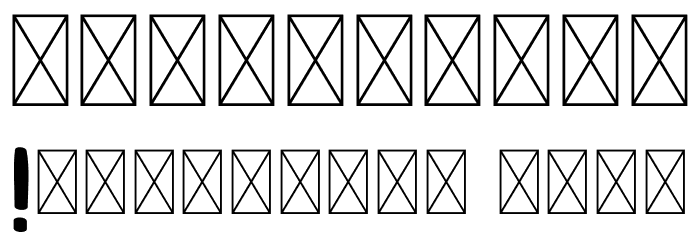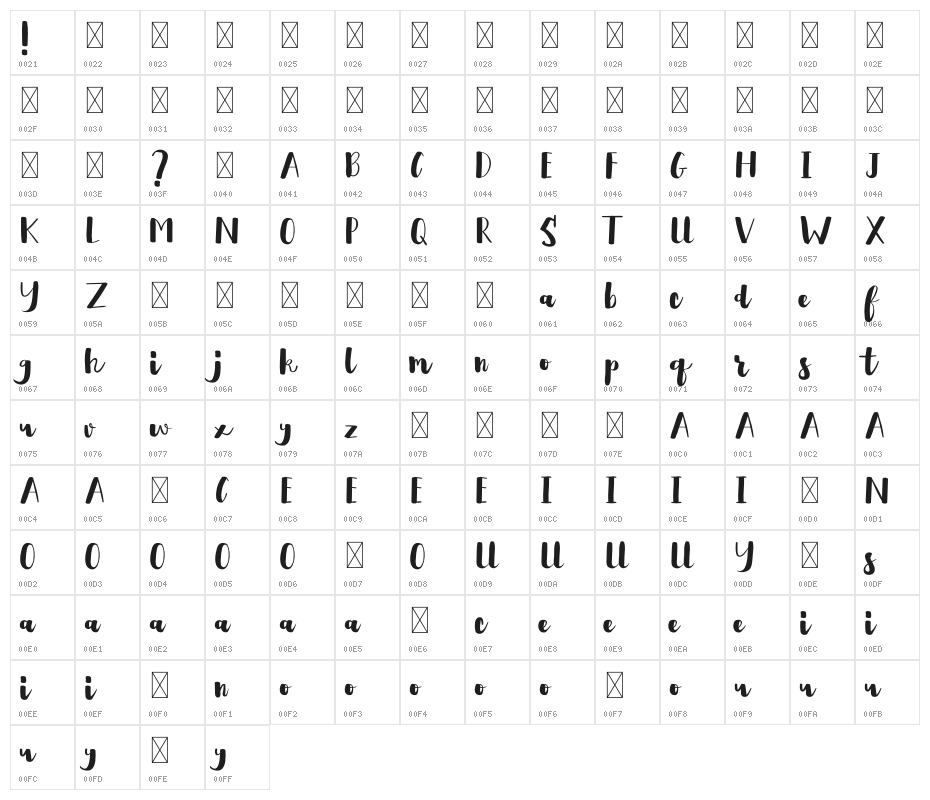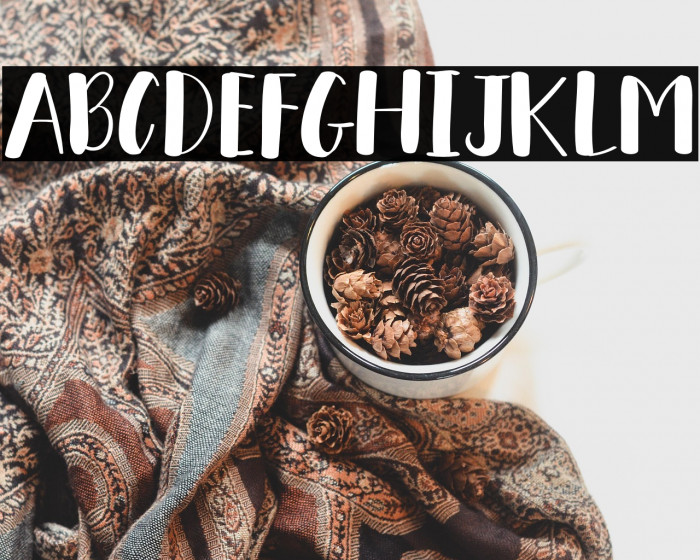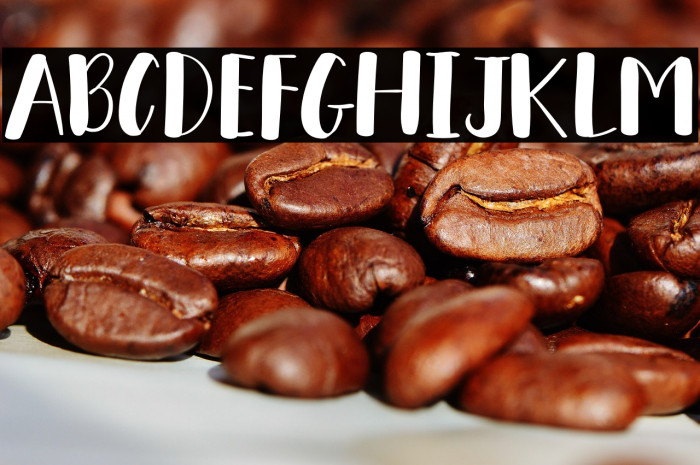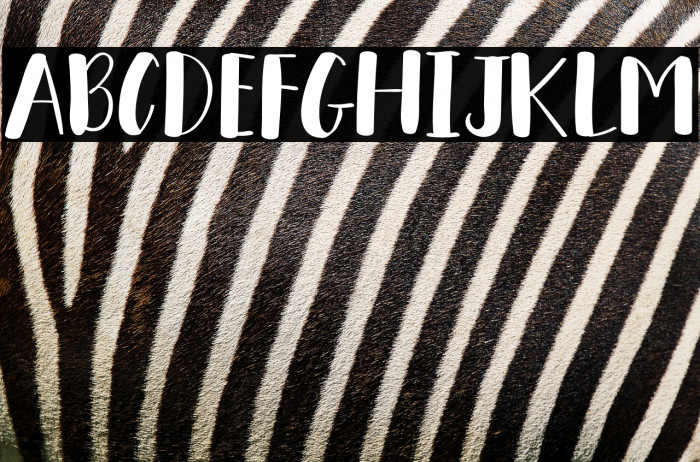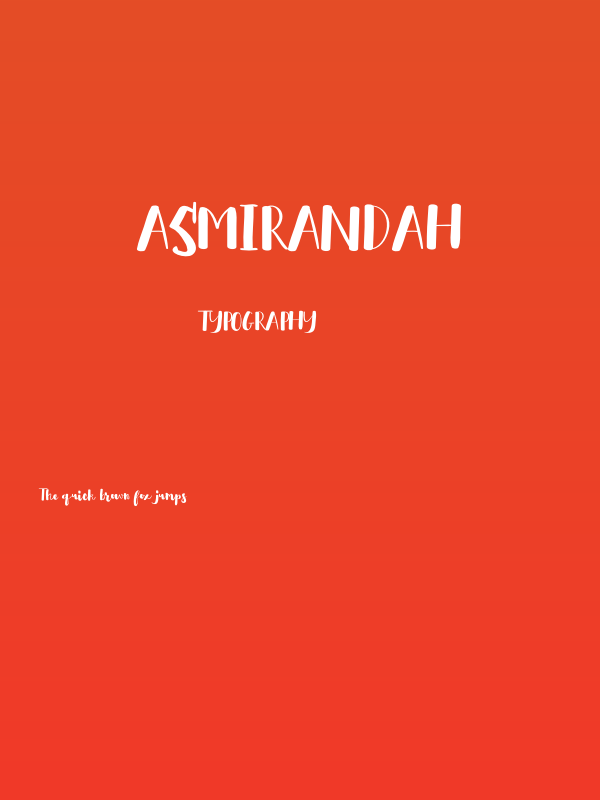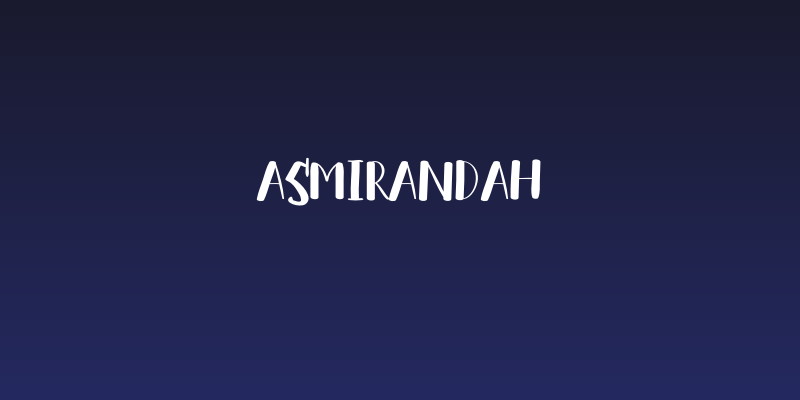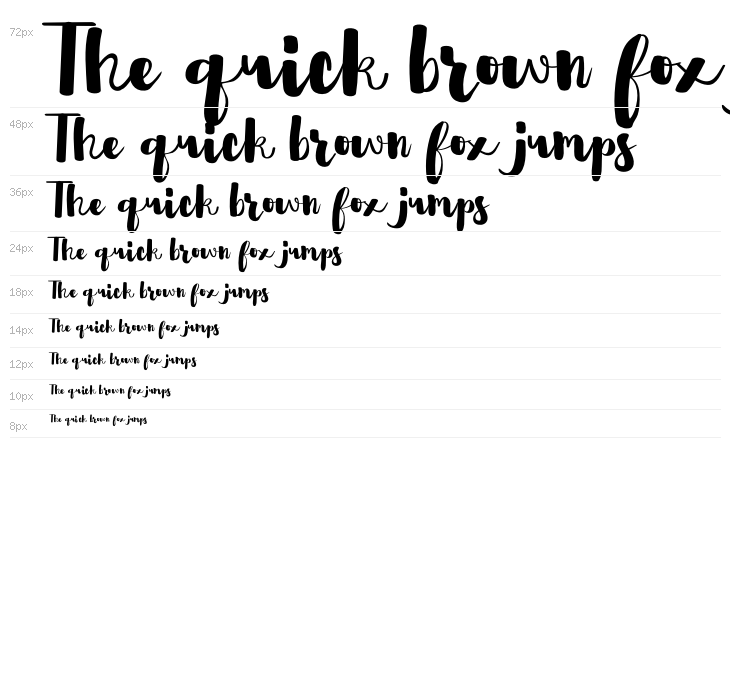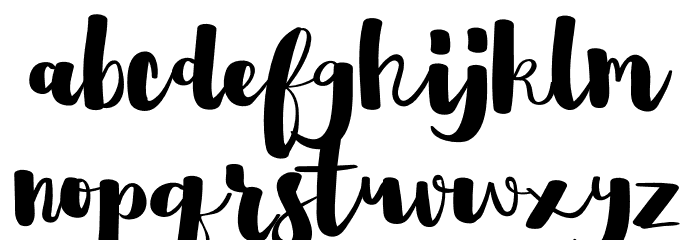
Asmirandah Font
Asmirandah Description
This font features a bold and expressive style with a handwritten aesthetic. The uppercase letters are tall and slightly condensed, with a playful and artistic flair. The lowercase letters maintain a consistent flow, adding a touch of elegance and creativity. The strokes are thick, providing a strong visual impact, while the curves and angles give it a dynamic and lively appearance. This font is well-suited for projects that require a personal and informal touch, such as invitations, greeting cards, or creative branding. The overall design is both modern and artistic, making it versatile for various design needs.
| Proposed Projects | Ideal for invitations, greeting cards, creative branding, and artistic projects. |